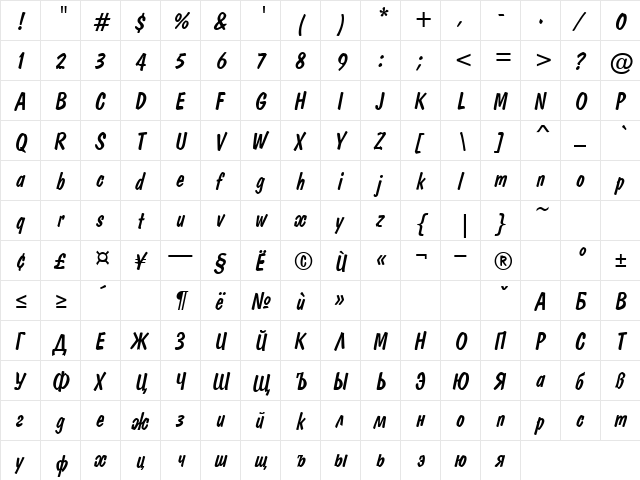
Domkrat Italic
Design Context for Domkrat Typeface
Domkrat takes a measured approach to typography — its balanced proportions and neutral character make it a reliable workhorse for both digital and print work. The slanted form adds forward momentum and visual energy.
Pro Tip: Use Domkrat for emphasis, pull quotes, and subheadings where its slanted energy can add rhythm to the layout.